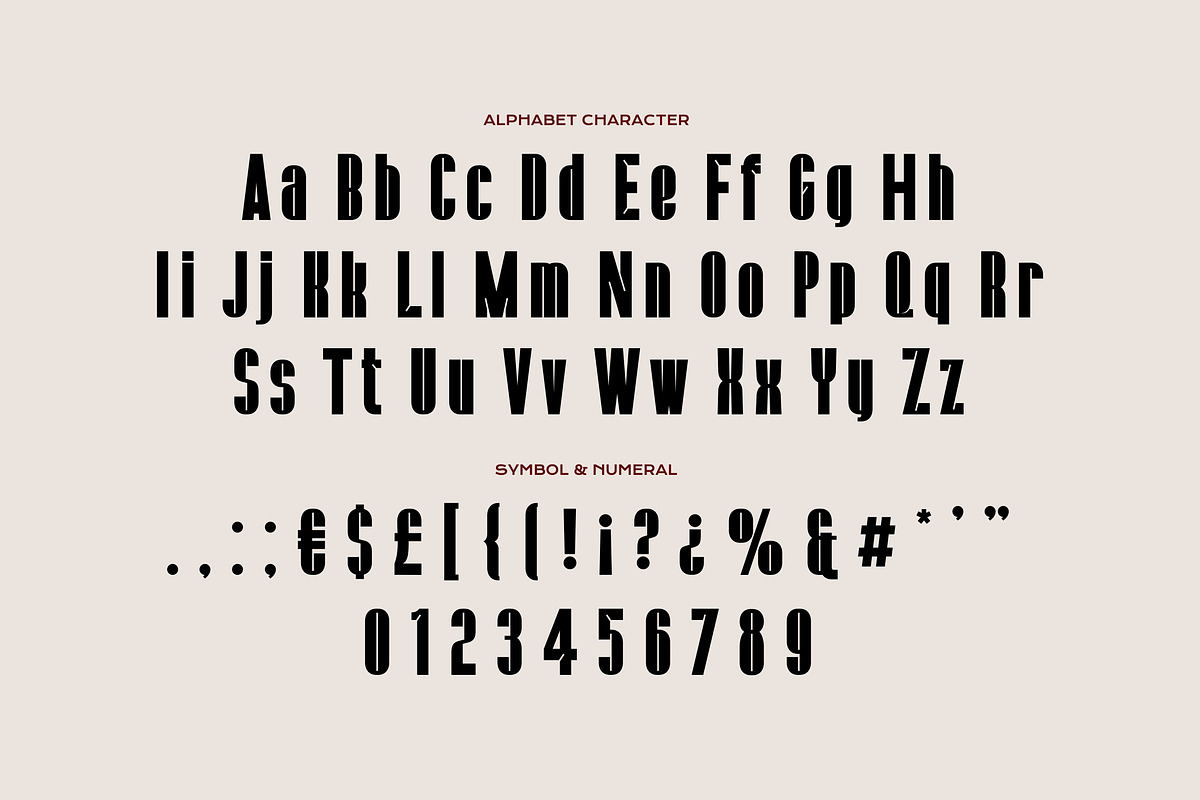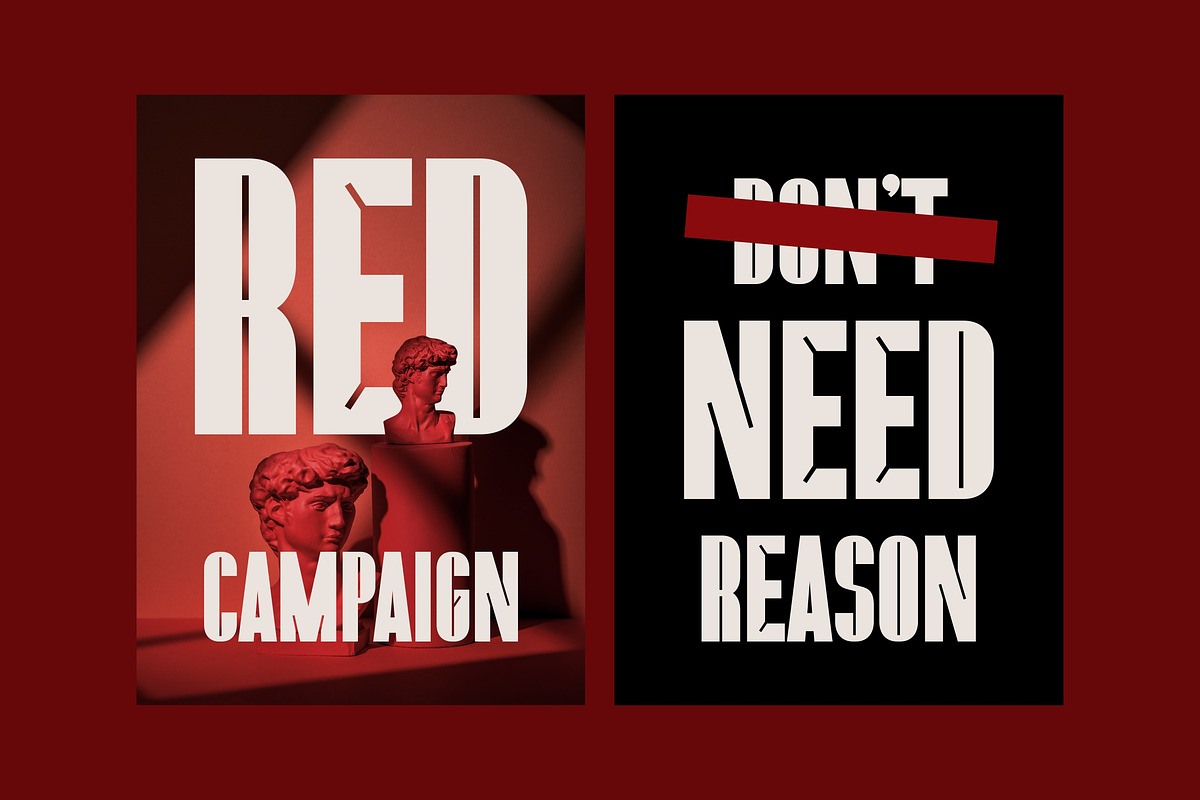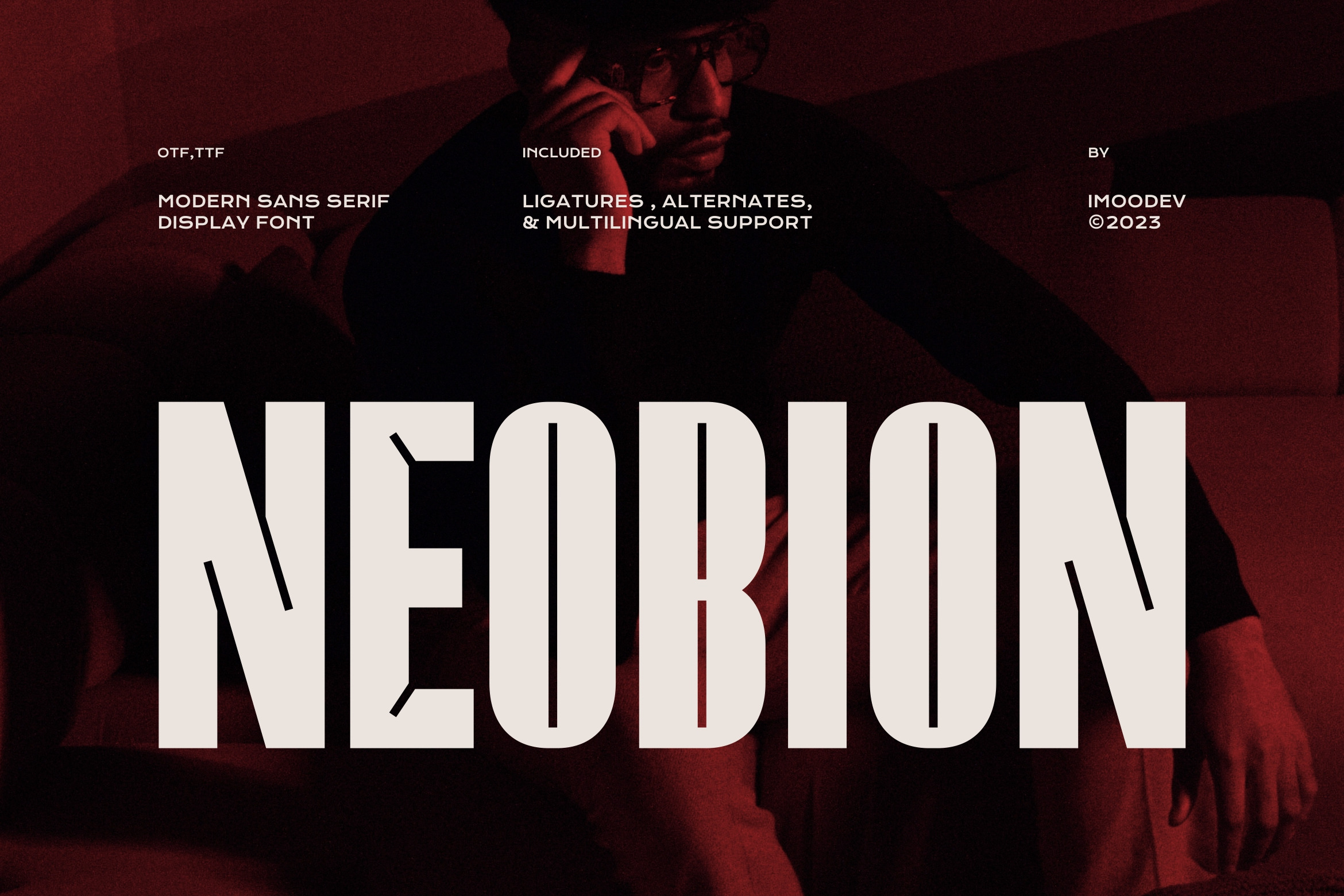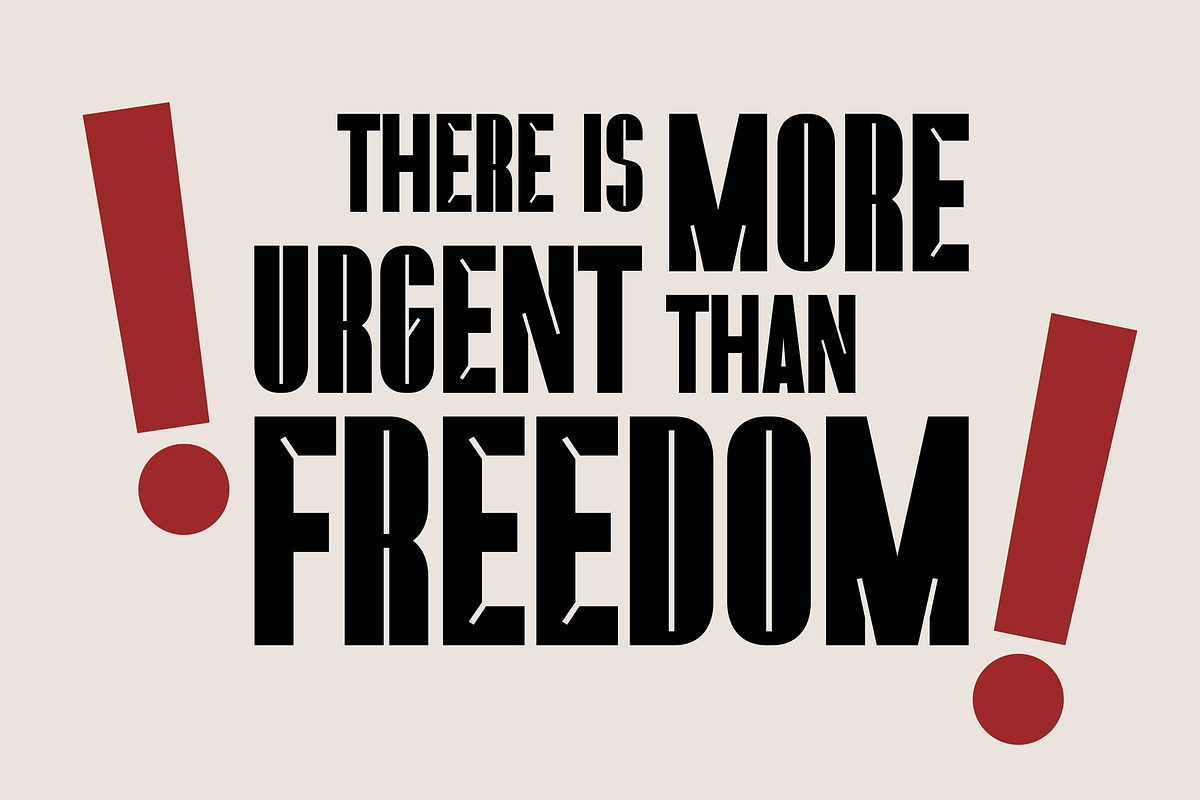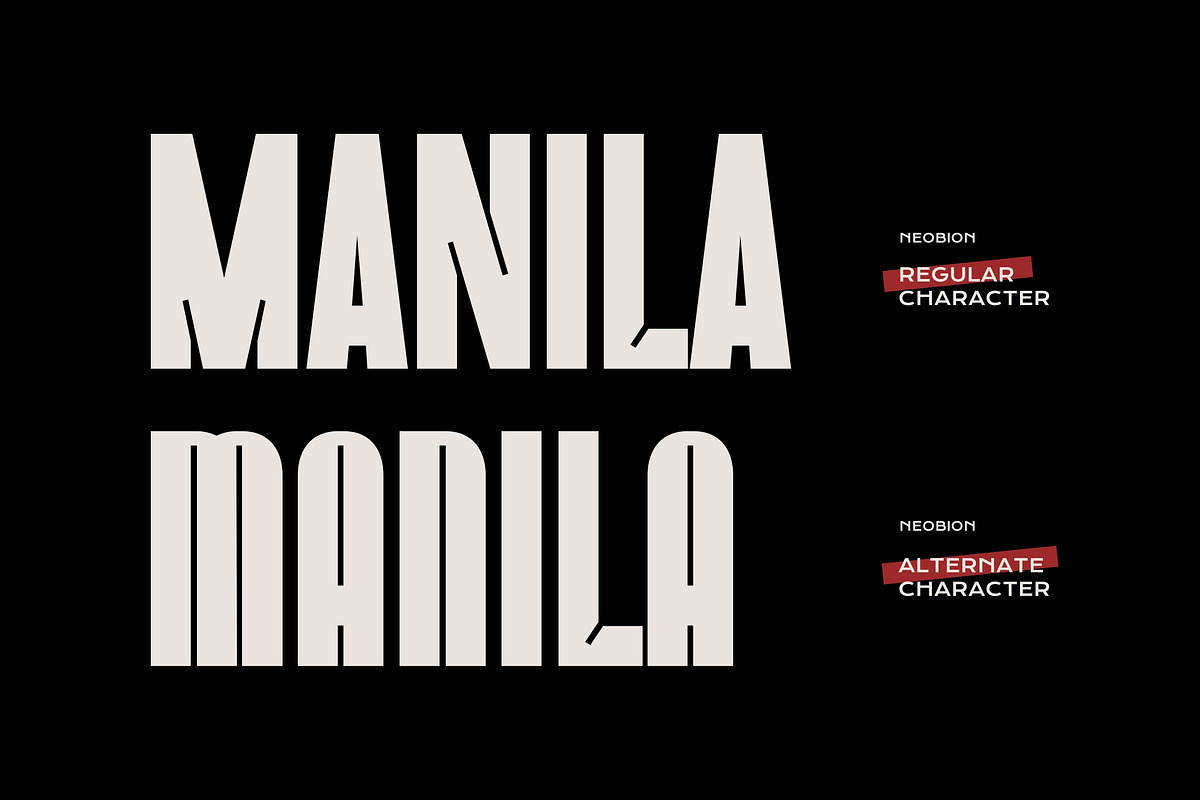
Neobion - Modern Condensed Font
Neobion is a bold, condensed sans serif designed to command attention. With its geometry and sharp, aggressive terminals, it blends industrial strength with a futuristic, cinematic aesthetic. It’s a versatile powerhouse for designers who need a typeface that speaks with authority and edge.
One of the standout features of Neobion is its Alternate Characters. You can instantly shift the mood of your design from a sharp, aggressive look to a more structured, architectural feel.
Whether you are working on a gritty streetwear brand, a poster, or a editorial layout, Neobion provides the modular flexibility to make your typography stand out.
- Branding and Logos: Create a memorable, bold identity.
- Posters and Headlines: High visibility display usage.
- Social Media: Eye catching quotes and thumb stopping headers.
- Editorial Design: Modern magazine spreads and covers.
- Uppercase and Lowecase Characters.
- Numerals and Punctuations.
- Alternates and Ligatures.
- Multilingual Support.